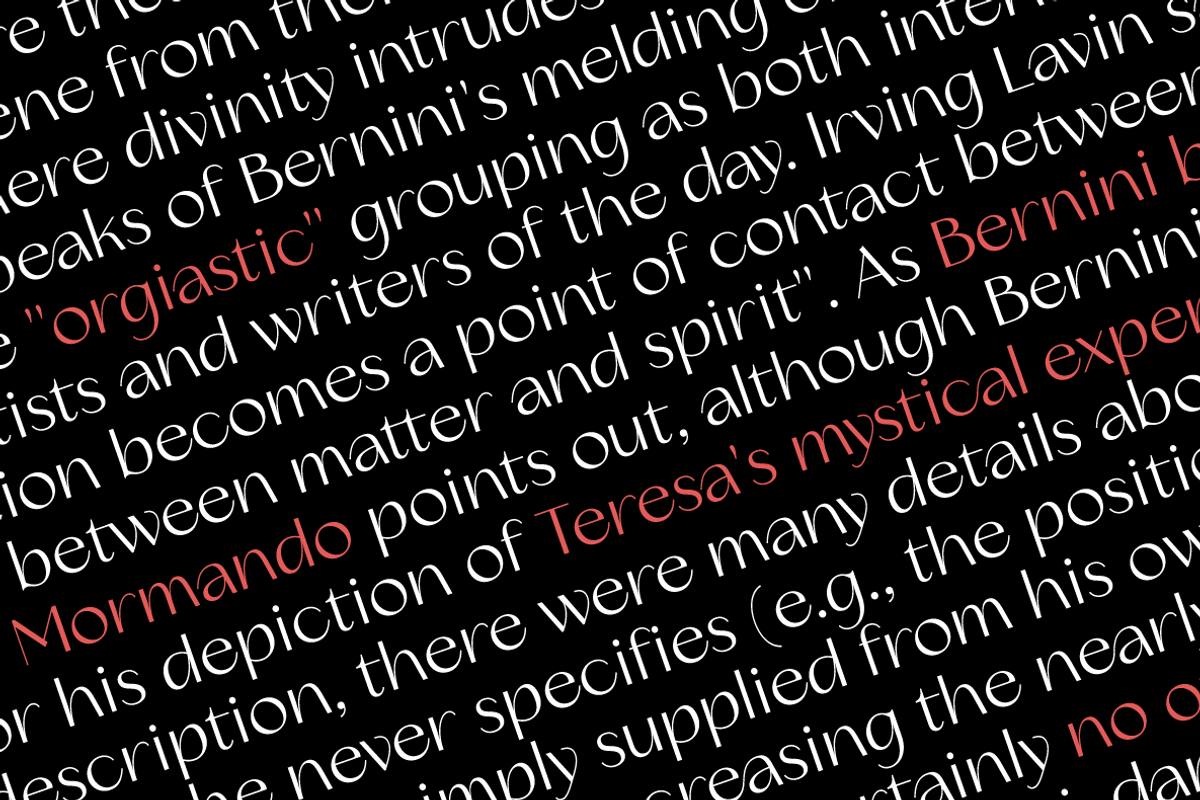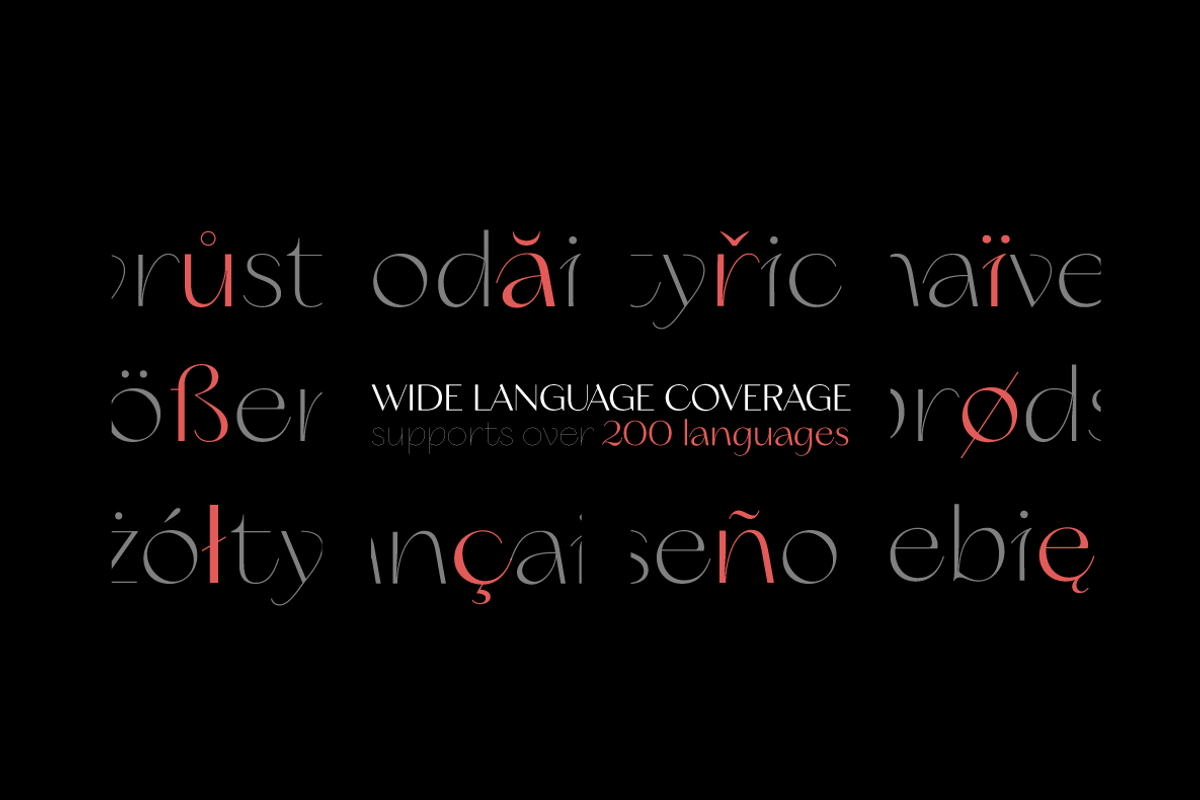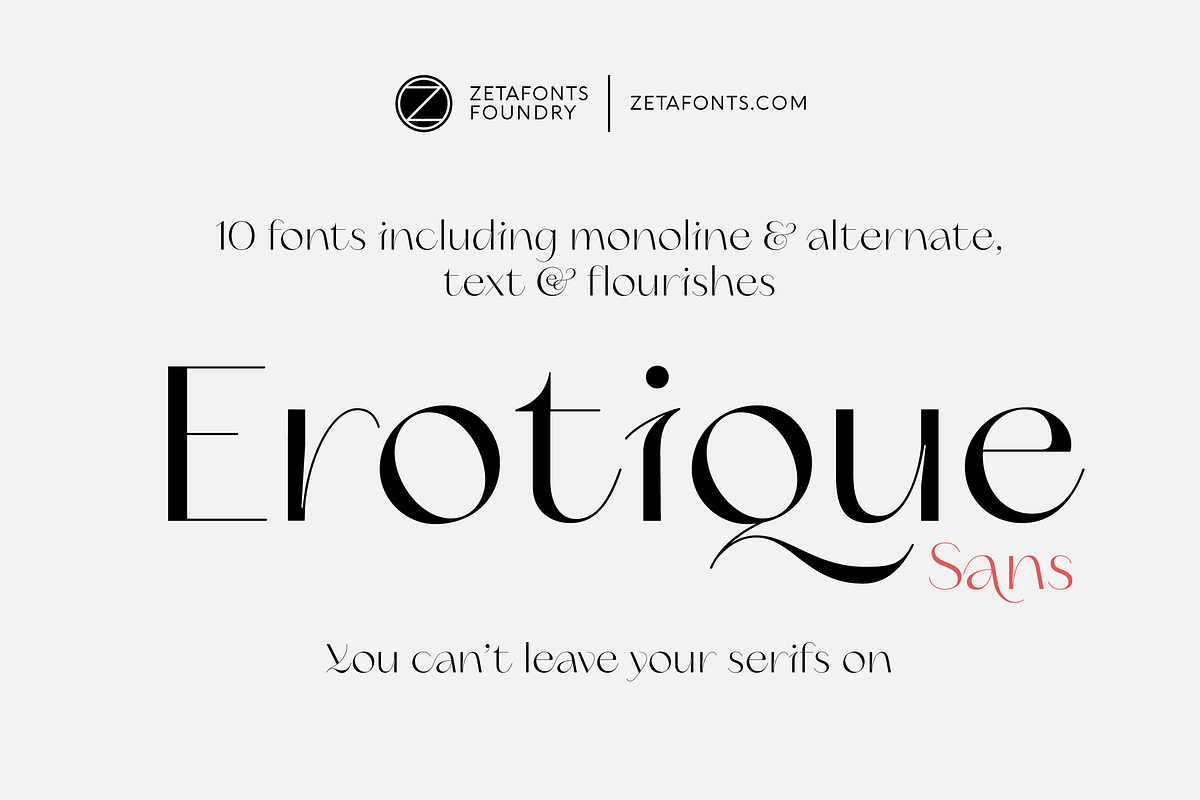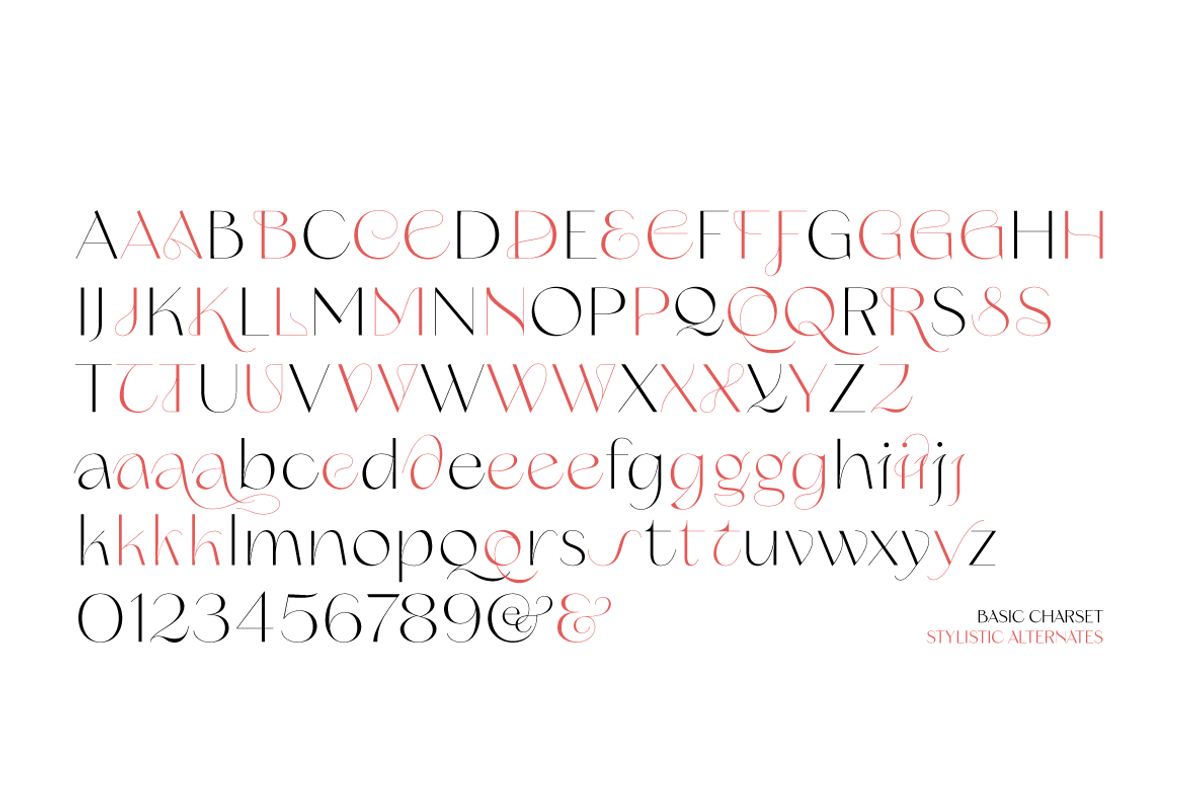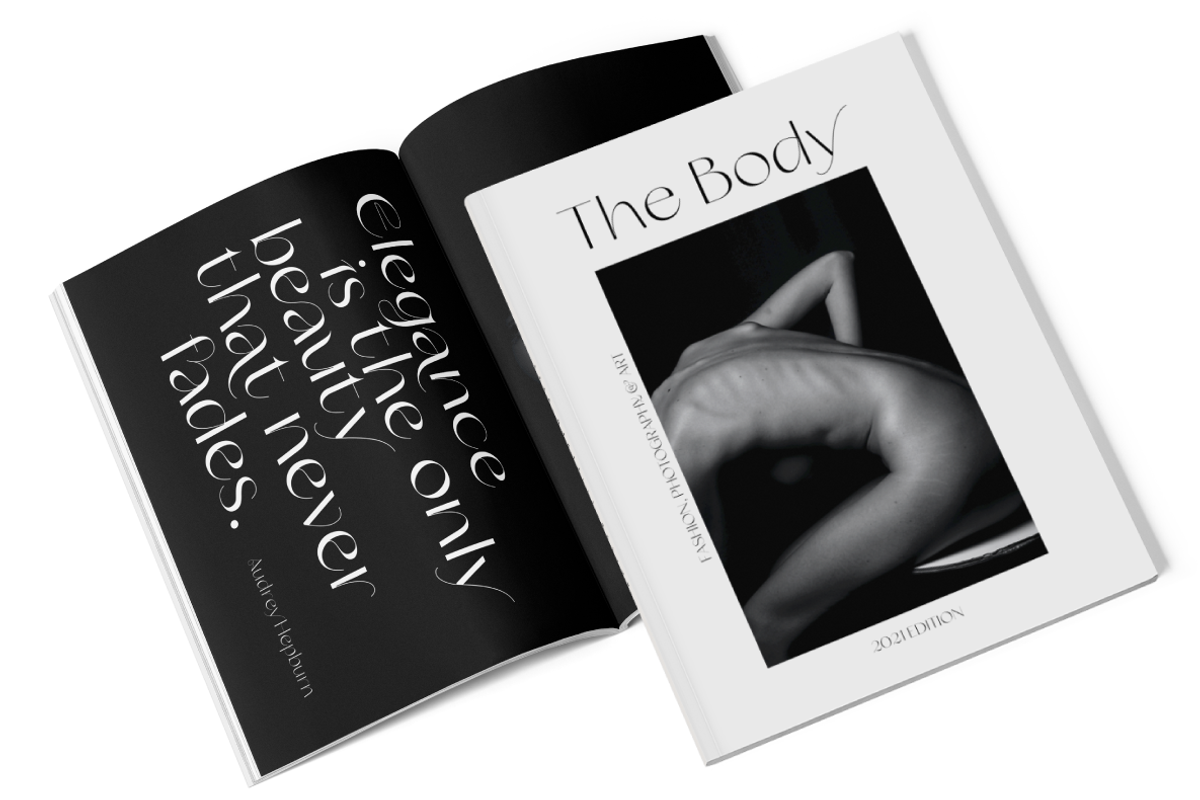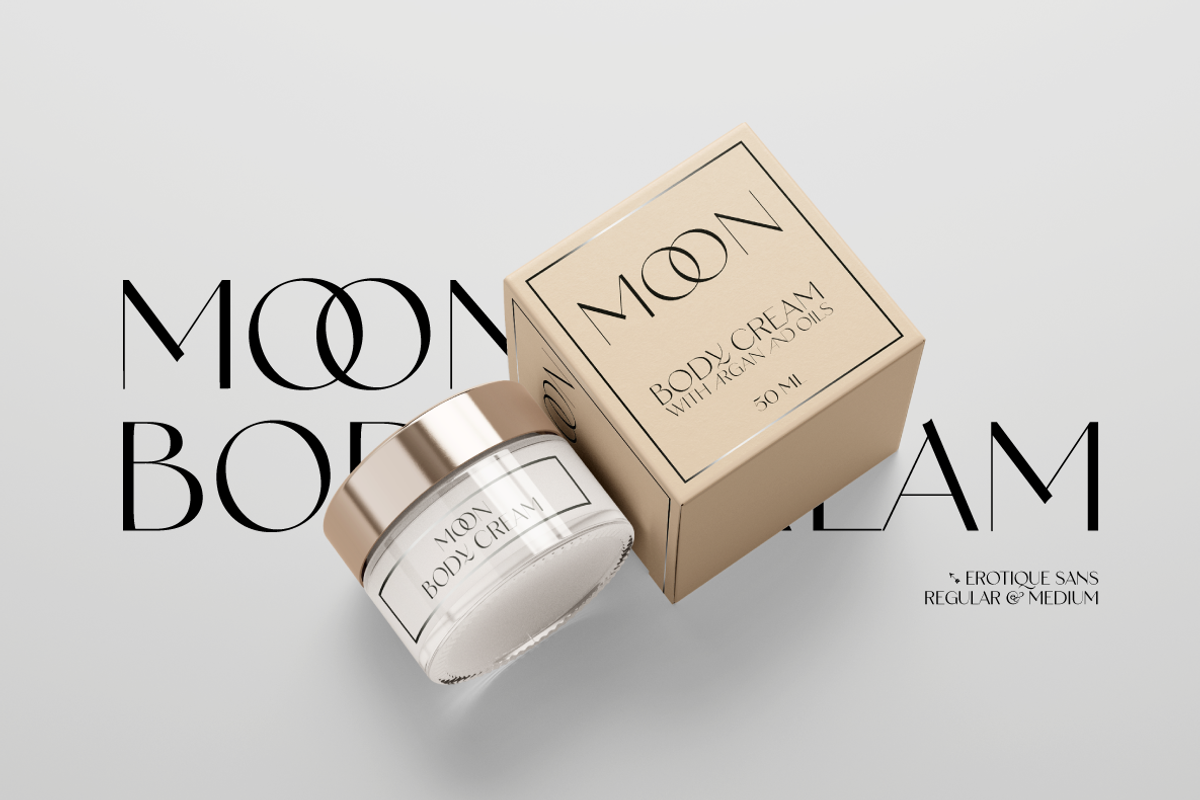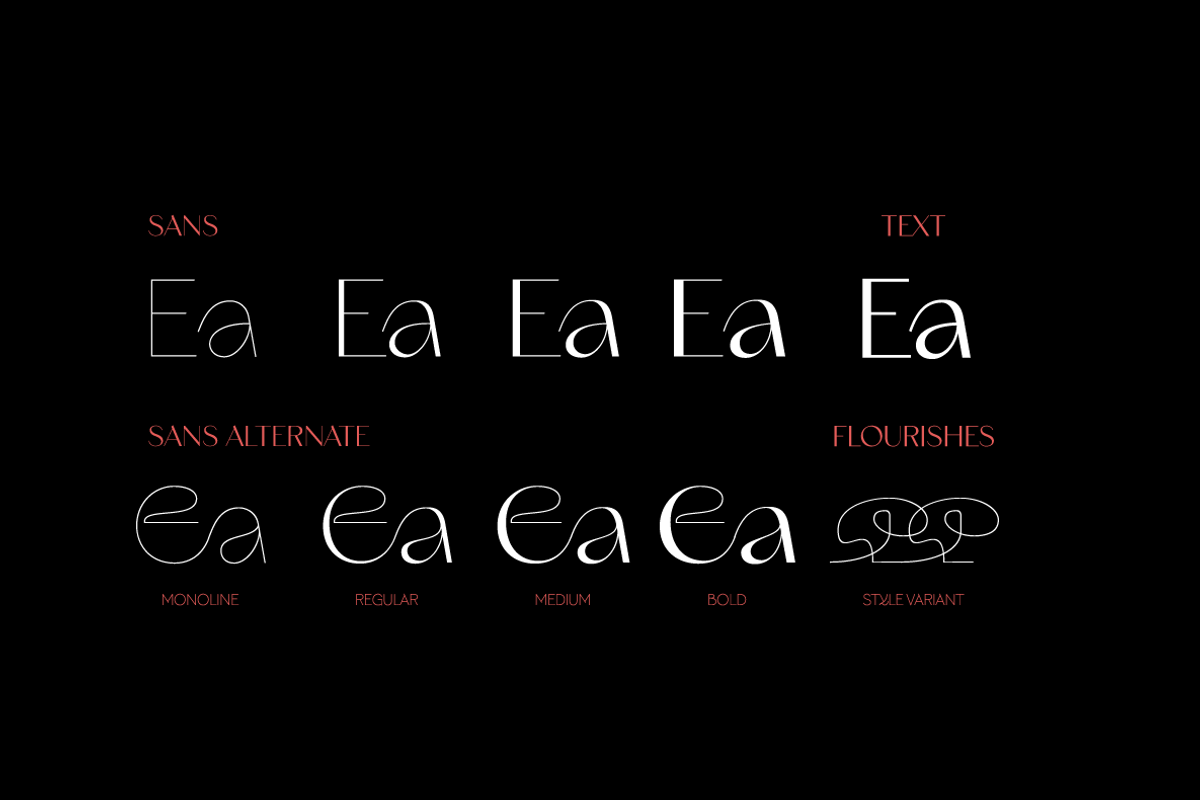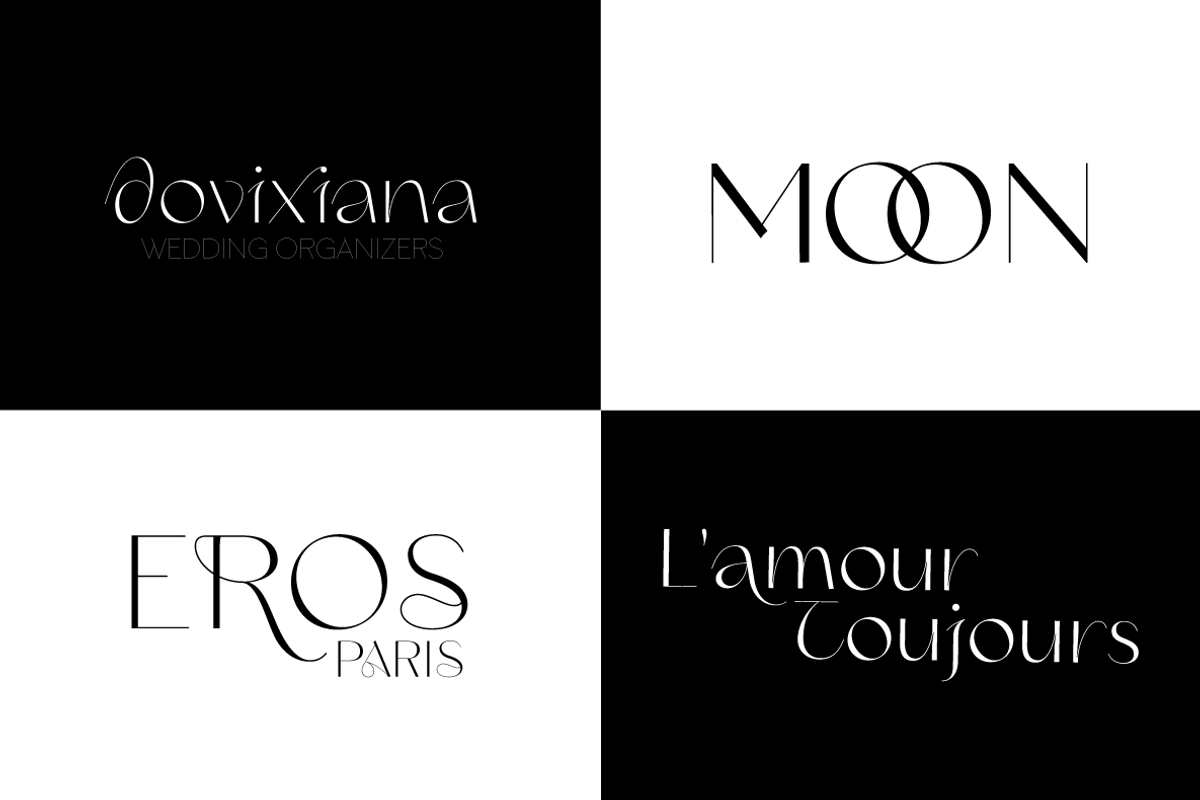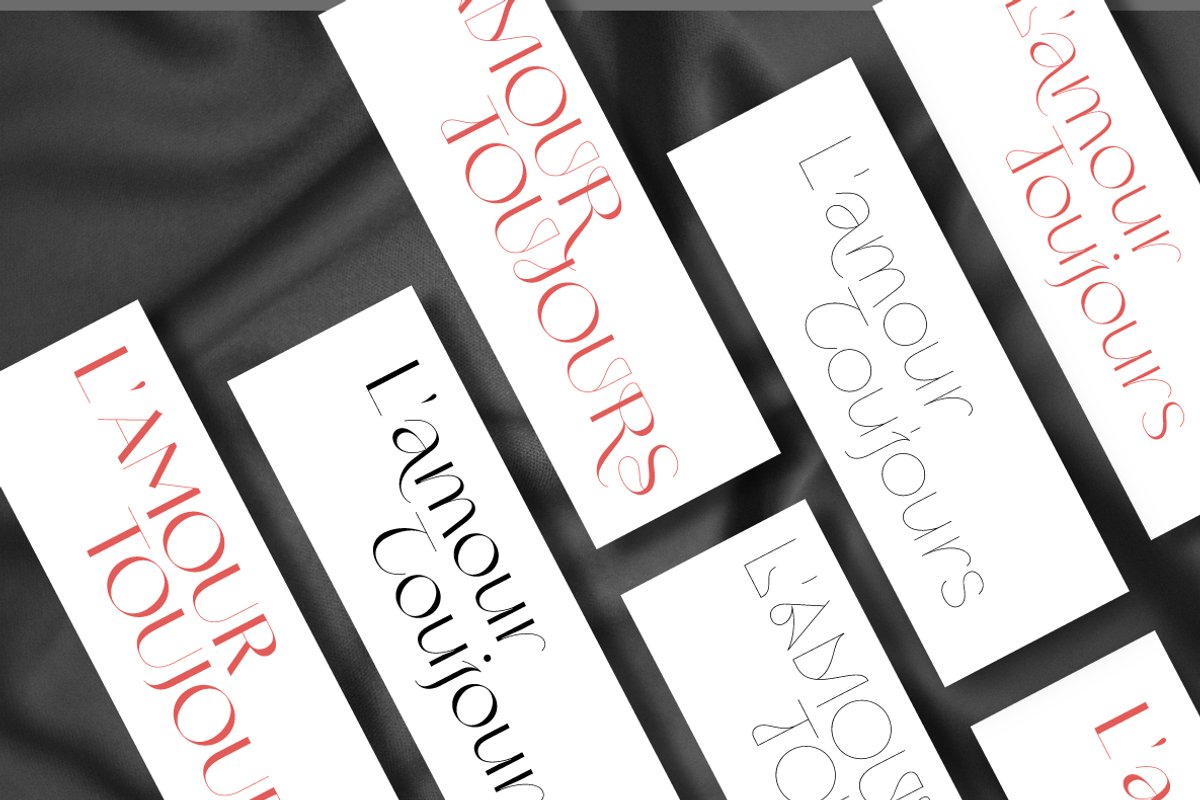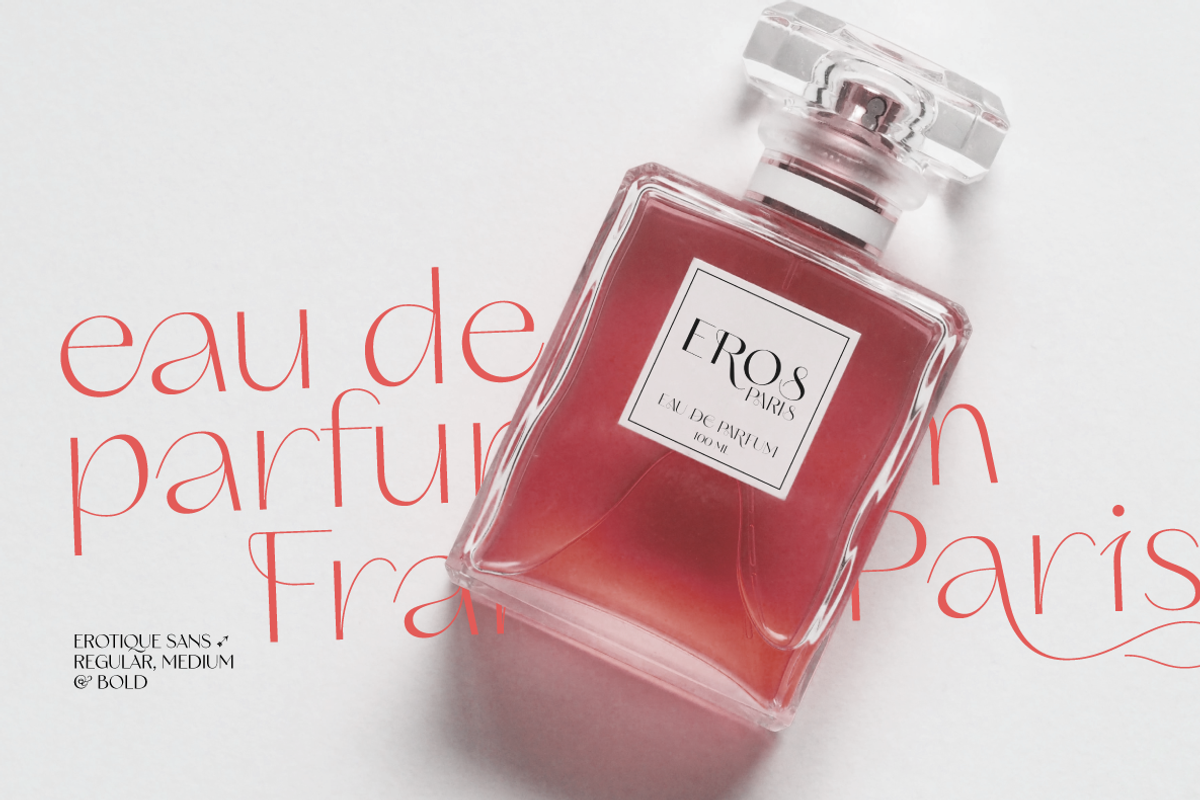
Erotique Sans - 10 fonts
Designed by Cosimo Lorenzo Pancini and Maria Chiara Fantini with the help of Solenn Bordeau, Erotique Sans is the sans serif version of Erotique: a typeface that evolved the original design of Lovelace mixing its romantic curves with the glitchy & fluid aesthetic of trans-modern neo-brutalist typography with the aim of creating a design that was feminine in an assertive and self conscious way.
With its restrained, didonesque elegance, Erotique Sans is mostly thought for display use. Its high-contrast design is ready to take center stage in projects where a subtle elegance and an edgy, contemporary touch are required. All its weights (regular, medium, bold and monoline) have been paired with an Alternate version to give immediate access to a wide array of exotic alternate letterforms, available as Open Type Stylistic Sets in the standard family.
For logo design and titling use Erotique Sans is paired by Erotique Flourishes, a set of whiplike fleurons that can not only be added to some letters, but also be used as interlocking patterns. For editorial use, since its high contrast requires big text size, the family is complemented by the Erotique Text weight that allows for longer text typesetting thanks to streamlined design, lower contrast and better readability.
With a character set of over 500 glyphs, all the the weights of Erotique sans cover almost 200 languages using extended latin, and include advanced Open Type features as Stylistic Alternates, Standard and Discretionary Ligatures, Positional Numerals, Swash and Case Sensitive Forms. If you liked Erotique, you won't be able to avoid falling in love with Erotique Sans - the font that can't keep its serifs on...
• Suggested uses: conceived as a great font for editorial/titling use, perfect for display and logo design too;
• 10 styles: 4 standard weights + 4 alternate weights + 1 text + 1 flourishes;
• 565 glyphs in each weight;
• Useful OpenType features: Access All Alternates, Case-Sensitive Forms, Glyph Composition / Decomposition, Discretionary Ligatures, Denominators, Fractions, Kerning, Lining Figures, Localized Forms, Mark Positioning, Mark to Mark Positioning, Numerators, Oldstyle Figures, Ordinals, Proportional Figures, Stylistic Alternates, Stylistic Set 1, Stylistic Set 2, Stylistic Set 3, Stylistic Set 5, Stylistic Set 6, Stylistic Set 7, Stylistic Set 8, Stylistic Set 9, Subscript, Superscript, Swash, Tabular Figures;